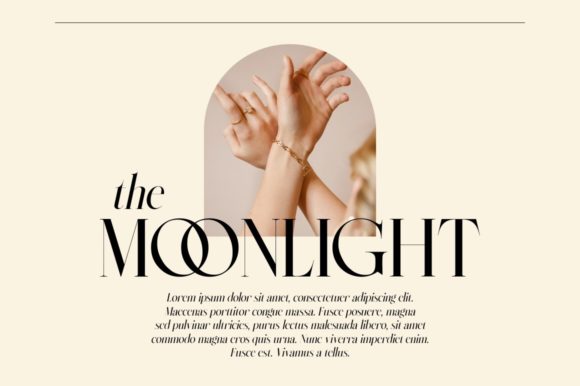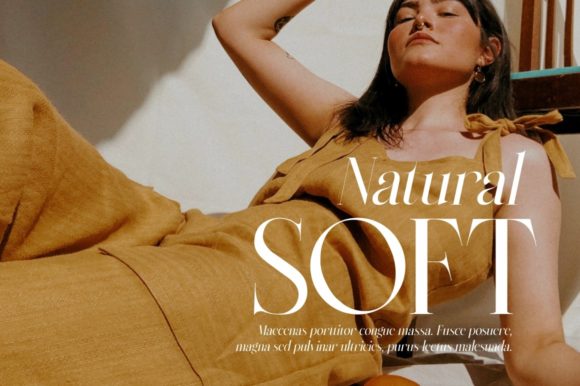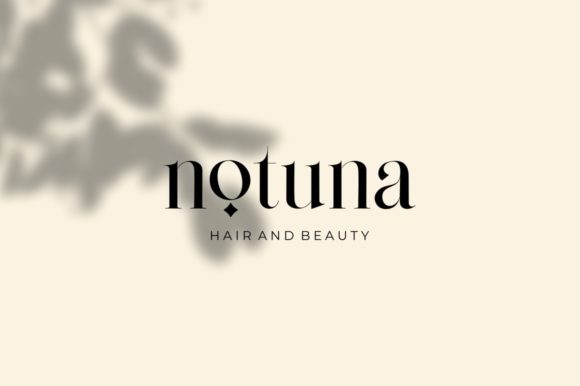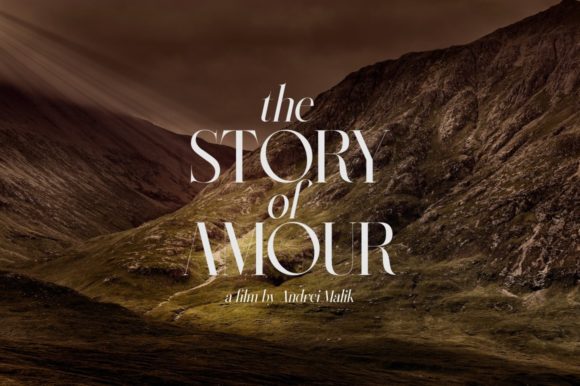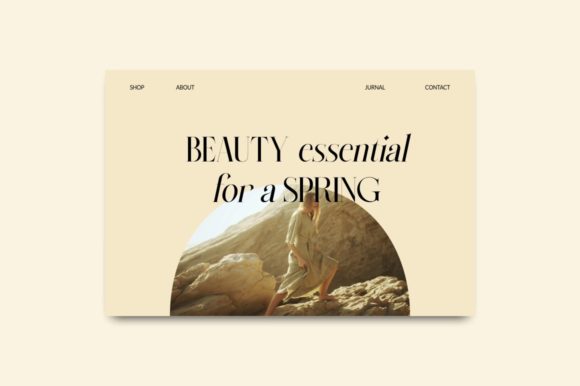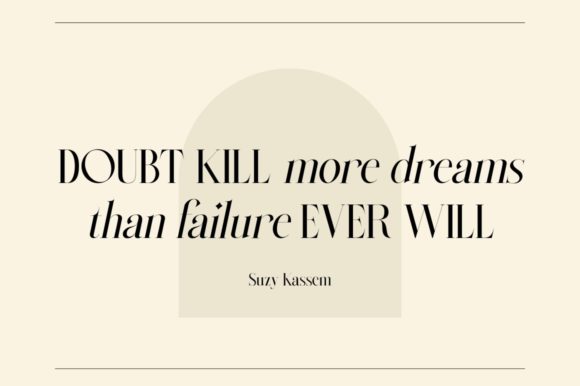
Introduction to Quirell Font
As a designer, have you ever found yourself staring at a blank canvas, searching for the perfect font to elevate your creative project? The hunt for the ideal typography can be overwhelming, but what if you stumbled upon a font that effortlessly combines elegance and modernity? That’s where the Quirell Font comes in – a game-changer for designers seeking a high-quality, versatile font.
With its classy look and transparent background, the Quirell Font is an absolute treasure trove for design enthusiasts. Whether you’re working on a logo, branding, invitation, or social media post, this font is sure to make your design stand out from the crowd. And the best part? It’s a free download, making it an invaluable resource for designers of all levels.
Key Features of Quirell Font
- High-quality design resource suitable for various creative projects
- Transparent background, allowing for seamless integration with various design elements
- Resolution-independent, ensuring crisp and clear text rendering at various resolutions
- Designed to be highly legible, making it ideal for body text and captions in creative projects
Honest Review: Quirell Font
As a designer, I’m always on the lookout for high-quality design resources to enhance my creative projects. Recently, I stumbled upon the Quirell Font, and I must say, it’s been a pleasant surprise.
Here are some things that work well for me:
- ✨ High quality and crisp typography: The Quirell Font is incredibly clear and readable, making it perfect for body text or headings.
- ✨ Versatile style: The font comes in several weights, from light to bold, allowing me to experiment with different looks and feels in my designs.
- ⚠️ Limited customization options: While the Quirell Font is beautiful, I wish there were more options for customization, such as the ability to adjust the transparency or create a transparent background.
- ⚠️ Limited language support: As with many free fonts, the Quirell Font may not support all languages, which could be a concern for designers working on multilingual projects.
Overall, I’m impressed with the Quirell Font and would recommend it to fellow designers. While it has its limitations, its high quality and versatility make it a valuable addition to any design resource library.
Tips for Getting the Most Out of Quirell Font
For optimal results, use the Quirell Font in conjunction with a high-quality image or design element. Experiment with different font sizes, colors, and styles to create a visually appealing design. You can also use the Quirell Font for free download, making it an excellent choice for creative projects on a budget.
The Quirell Font is ideal for a wide range of creative projects, including logos, business cards, and marketing materials. Its high-quality design and transparent background make it an excellent choice for designers looking to create visually appealing and professional-looking designs.